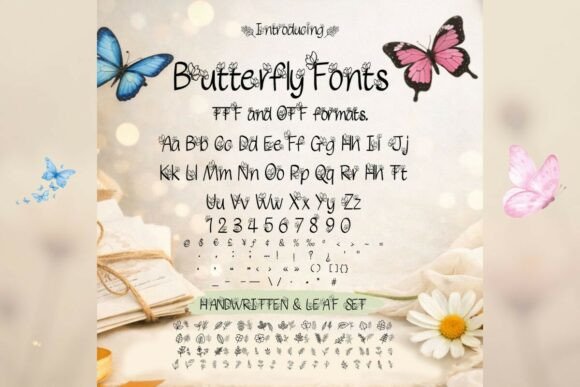
Discover the Whimsical Charm of the Butterfly Font
Have you ever been working on a design project, and suddenly, it feels like something is missing? You’re not quite sure what it is, but you know it needs a little extra magic. For me, that magic moment happened when I stumbled upon the Butterfly Font. This beautiful, handwritten script is adorned with delicate butterflies, leaves, and floral motifs that instantly add a touch of charm and positivity to any design.
A Personal Design Moment: Finding the Perfect Font
I recall working on a client’s wedding invitation project, and she wanted something that captured the essence of a whimsical garden party. I had tried several fonts, but none seemed to fit the bill. That’s when I discovered the Butterfly Font. Its unique blend of elegance and playfulness instantly won me over, and I knew it was the perfect fit for the project. The client loved it, and it set the tone for a beautiful and memorable event.
So, what makes the Butterfly Font so special? Here are a few things I love about it:
- ✨ Unique and eye-catching design with delicate butterflies and floral motifs
- ✅ Perfect for a variety of design projects, from planners and invitations to logos and digital products
- 💫 Whimsical and nature-inspired style that’s sure to delight customers
- 🤔 Some of the glyphs and special characters can be a bit finicky to access, but with a little practice, you’ll get the hang of it
- ⚠️ The font may not be suitable for very formal or traditional designs, as it has a distinctly playful feel
- Experiment with the OpenType features, such as glyphs and stylistic alternates, to add extra flair to your design
The Designer’s Inspiration: A Backstory
The Butterfly Font was inspired by the beauty of nature and the whimsy of a garden in bloom. The designer, a lover of flowers and butterflies, set out to create a font that captured the essence of a carefree, outdoor lifestyle. With its delicate butterflies and floral motifs, the Butterfly Font is the perfect reflection of that inspiration.
| Q: What type of designs is the Butterfly Font best suited for? | A: The Butterfly Font is perfect for a variety of design projects, including planners, invitations, greeting cards, logos, and digital products. |
Conclusion
The Butterfly Font is a beautiful, whimsical script that’s perfect for adding a touch of charm and positivity to your designs. With its delicate butterflies, leaves, and floral motifs, it’s sure to delight customers and elevate your design projects. Whether you’re a designer, crafter, or creative hobbyist, the Butterfly Font is a great addition to your font library.